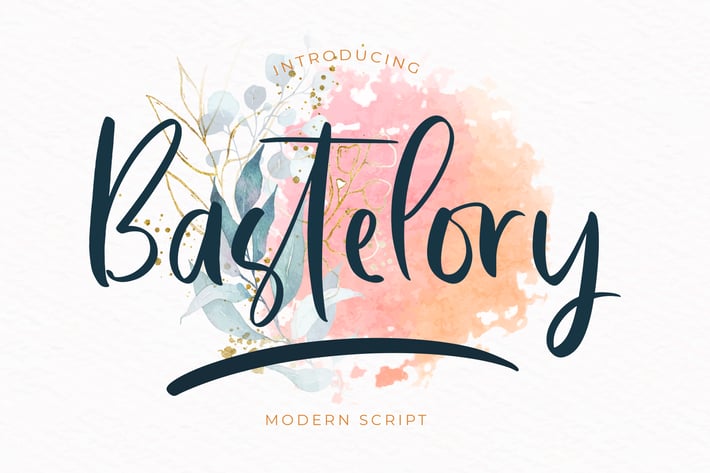
Bastelory Modern Script Font
Bastelory is a Modern Script font that can make your text appear elegant, luxurious, and modern!
Bastelory is perfect for branding projects, logo, wedding designs, social media posts, advertisements, product packaging, tshirt design, product designs, label, photography, watermark, invitation, stationery, and any projects.